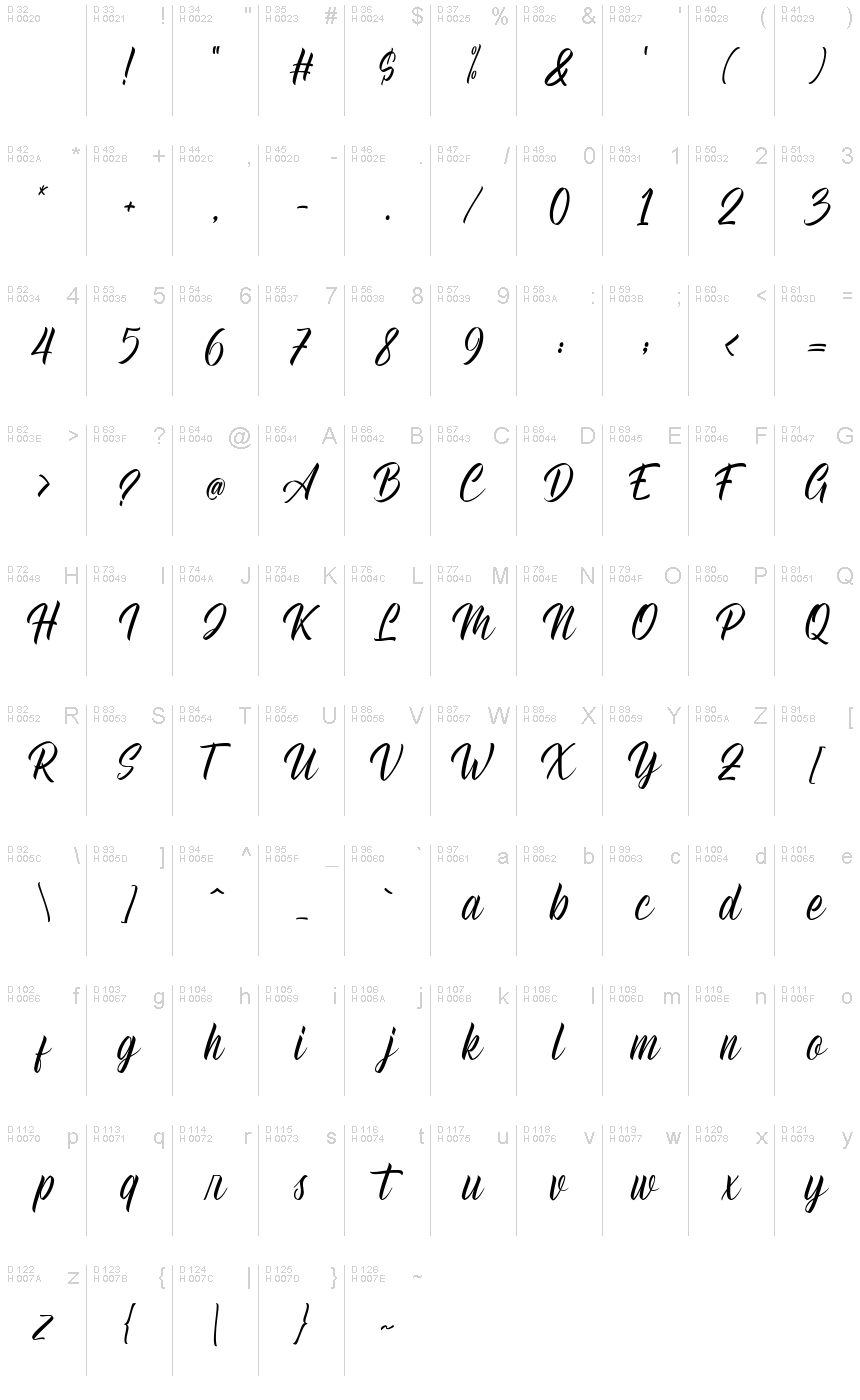
Golden History is a captivating handwritten font designed by Mozatype, showcasing a perfect blend of elegance and artistic flair. Its condensed width lends the font an effortlessly sophisticated appearance, making it stand out with its unique style. The fluid strokes and delicate curves create a sense of charm and personal touch, ideal for adding character to your projects.
This exquisite font excels in applications that demand a refined yet approachable look. Perfect for wedding invitations, logos, branding elements, social media graphics, and high-end product packaging, Golden History brings an air of authenticity and elegance to any design scenario. Embrace the timeless beauty of this distinctive typeface to elevate your creative endeavors.
Golden History font presentation and specimen